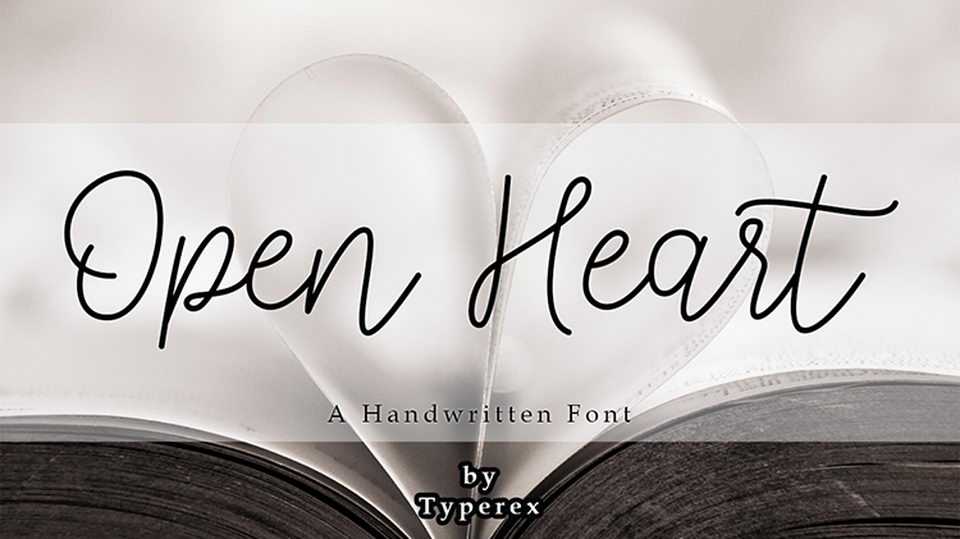
Download Open Heart font, a simple handwritten script with a natural feel. Open Heart font is perfect for crafts, cards, notes, quotes, social media and other projects to add a personal touch.
Designer: The Typerex